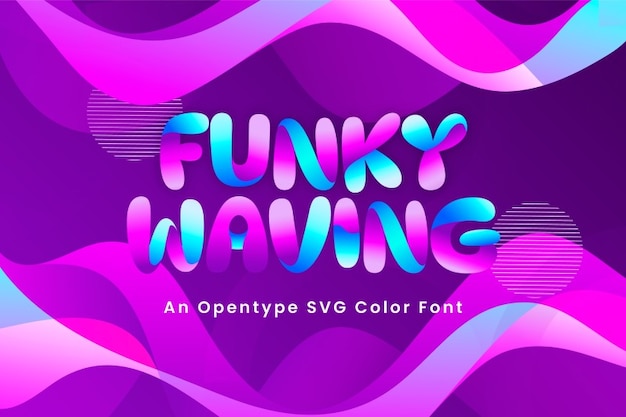
Looking for some funky vibes? Try out the Funky Waving font now and add a trendy touch to banners, posters, backgrounds and much more. Already available, so you just need to click and download it!